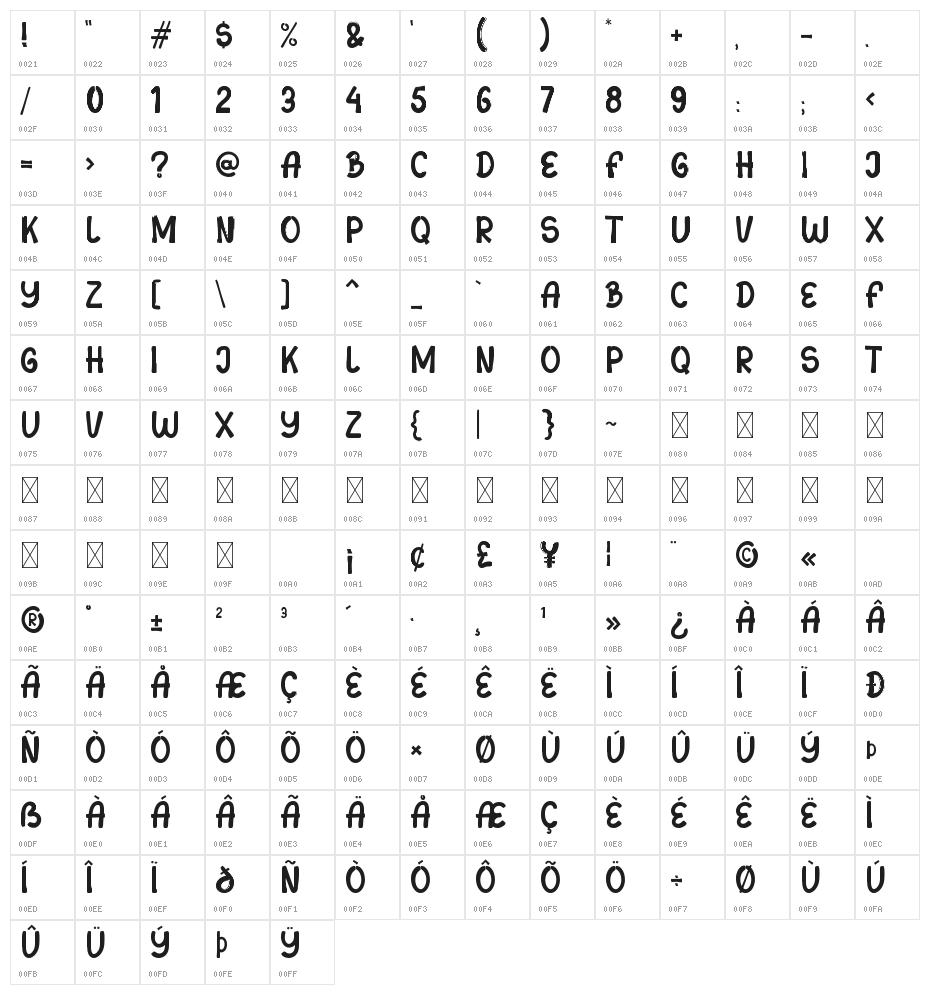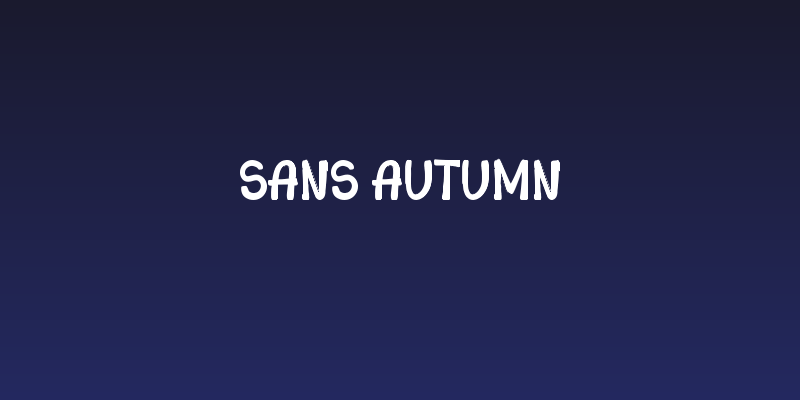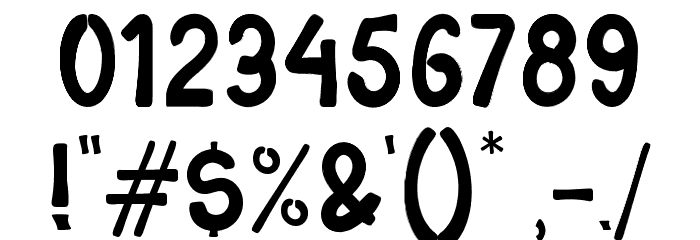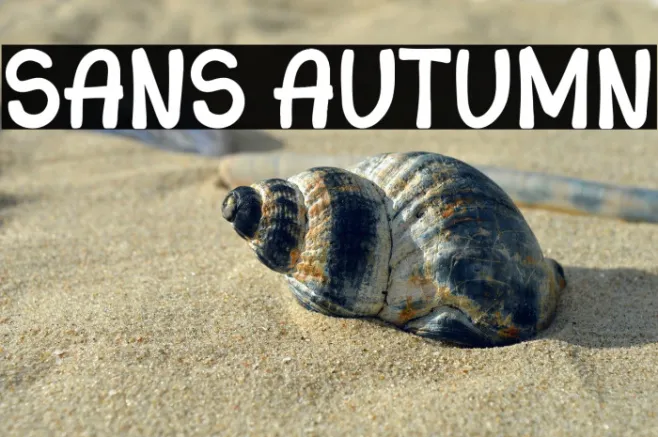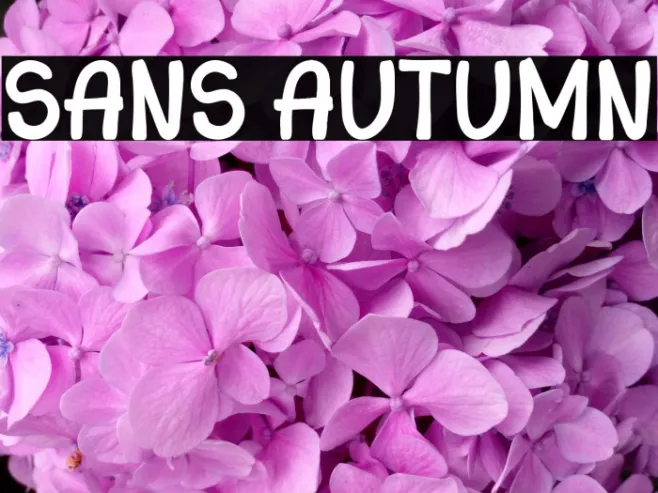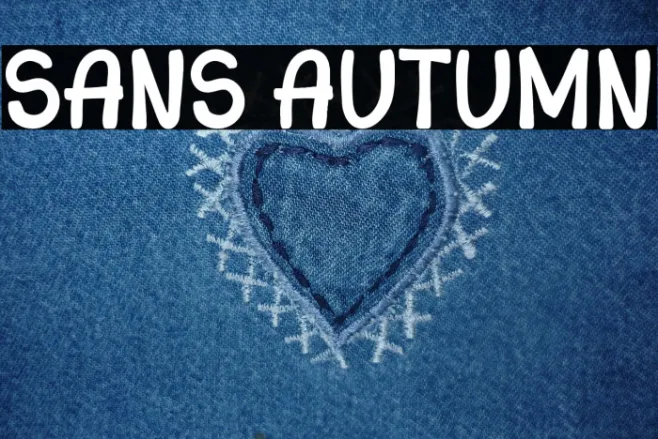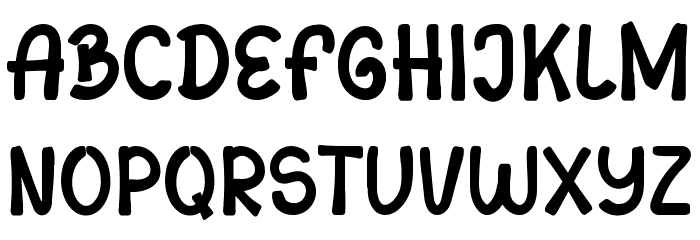
Sans Autumn Font
Sans Autumn Description
This font features a bold and playful design, characterized by its thick strokes and rounded edges. The letters have a hand-drawn, casual feel, making them appear friendly and approachable. The uppercase and lowercase letters maintain a consistent style, with a slight slant that adds a dynamic touch. The numbers are equally bold, ensuring readability and consistency with the overall design. Special characters are included, maintaining the same playful and bold aesthetic. This font is ideal for projects that require a fun and informal tone.
| Proposed Projects | Perfect for children's books, playful branding, casual invitations, and creative posters. |